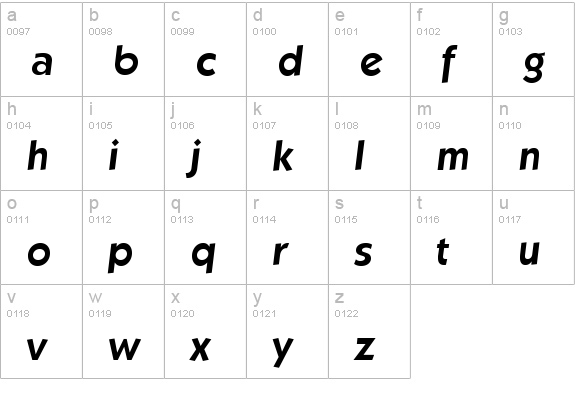
Koblenz-DemiBoldIta font is a modern and stylish typeface that strikes the perfect balance between boldness and elegance. With its sleek design and unique italicized characters, this font is perfect for making a statement in your designs. The Koblenz-DemiBoldIta font exudes confidence and sophistication, making it ideal for a wide range of projects, from branding to advertising and beyond. What makes Koblenz-DemiBoldIta font even more appealing is that it is available for free download at FontsMarket.com. This means you can easily access this high-quality font to elevate your designs without any cost. So why wait? Download Koblenz-DemiBoldIta font today and add a touch of sophistication to your projects.